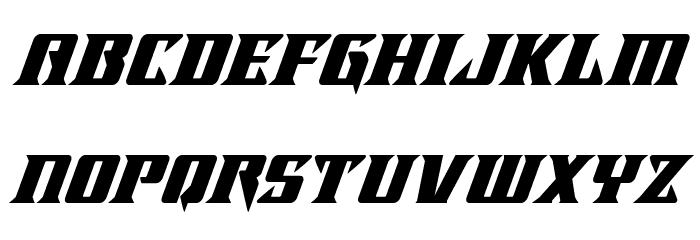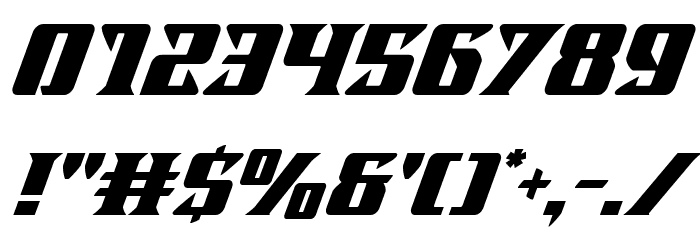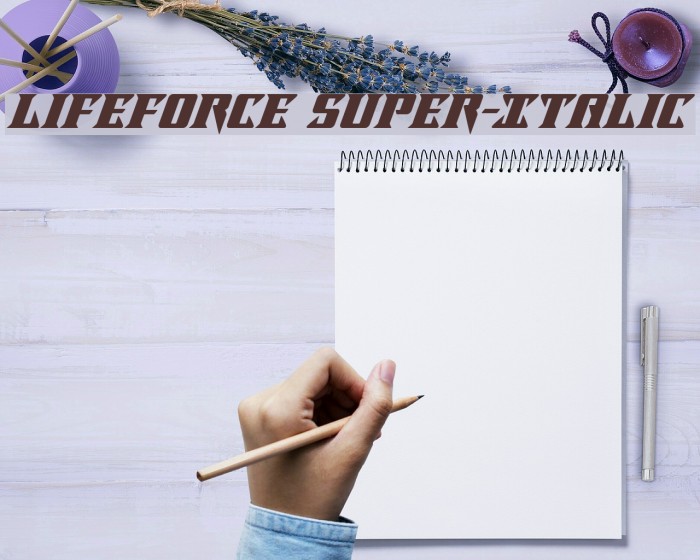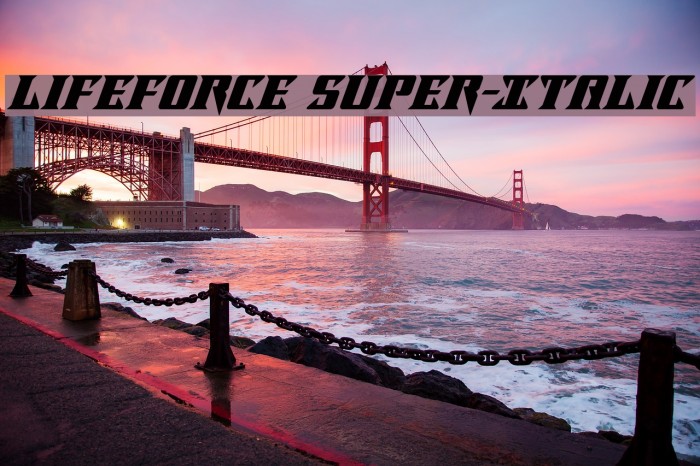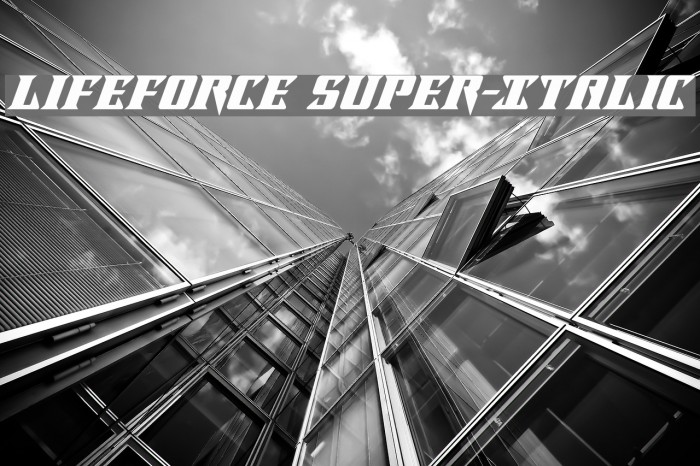
Lifeforce Super-Italic Font
This font features a bold and dynamic design with a strong italic slant, giving it a sense of motion and energy. The characters are sharply angular, with distinct edges and a futuristic feel. The uppercase and lowercase letters maintain a consistent style, with the uppercase being particularly striking due to their size and shape. Numbers and special characters are equally bold, ensuring they stand out in any context. The overall aesthetic is modern and aggressive, making it suitable for attention-grabbing designs.
A bold, italicized font with a dynamic, futuristic style.
- Proposed Projects: Ideal for sports branding, video game titles, action movie posters, and dynamic logos.